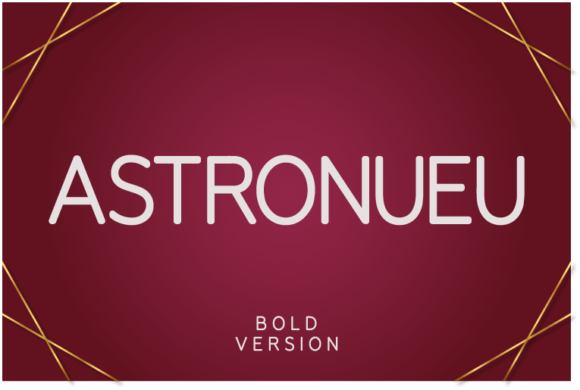
The Designer’s Dream Font: Astronueu Bold
I’ll never forget the struggle I faced while working on a branding project for a new coffee shop. My client wanted a bold, eye-catching logo that would stand out on their packaging and marketing materials. I spent hours scouring font libraries, but nothing seemed quite right – until I stumbled upon Astronueu Bold. ✨ This modern, sophisticated font has been a game-changer for my design work, and I’m excited to share its features and benefits with you.
An Honest Review of Astronueu Bold
- ✨ Chunky and extended characters that add a touch of elegance to any design
- ✅ Perfect for logos, branding, and packaging design – it’s incredibly versatile
- 🌟 Masterfully designed with attention to detail and a clear understanding of typography
While Astronueu Bold is an exceptional font, there are a few minor considerations to keep in mind: 🤔
- ⚠️ Some characters may appear too bold when used at smaller font sizes – experiment with different sizes to find the sweet spot
- ⚠️ Limited availability of stylistic alternates – but the existing options are still incredibly useful
The Story Behind Astronueu Bold
Astronueu Bold was designed with the goal of creating a modern, versatile font that would excel in a variety of design applications. The designer aimed to craft a font that would be both bold and elegant, with a unique character that would set it apart from other fonts on the market. 💡
Q: What makes Astronueu Bold suitable for logos and branding?
A: Astronueu Bold’s chunky and extended characters make it perfect for creating eye-catching logos and branding materials that require a strong visual presence.
Q: Can I use Astronueu Bold for body text?
A: While Astronueu Bold is primarily designed for headlines and titles, it can be used for body text in certain contexts. However, its bold nature may make it more suitable for short paragraphs or emphasis text.
Q: Is Astronueu Bold a script font?
A: No, Astronueu Bold is a sans-serif font with a bold, geometric aesthetic.